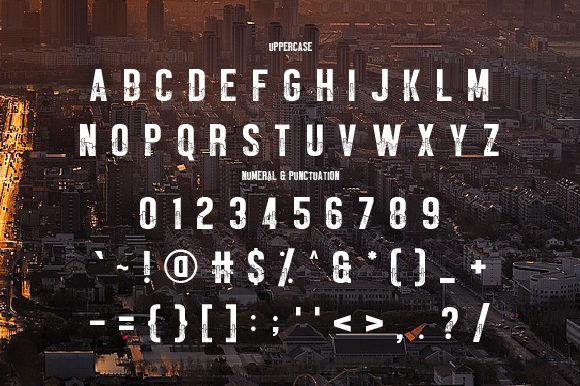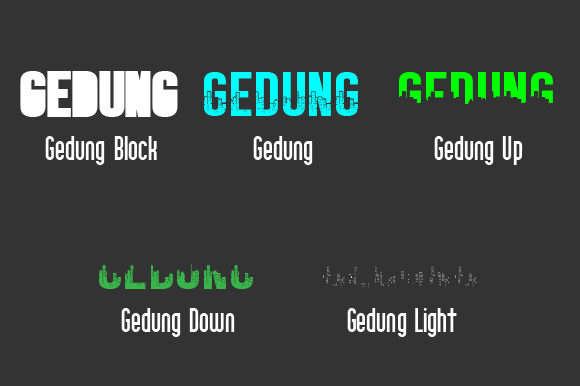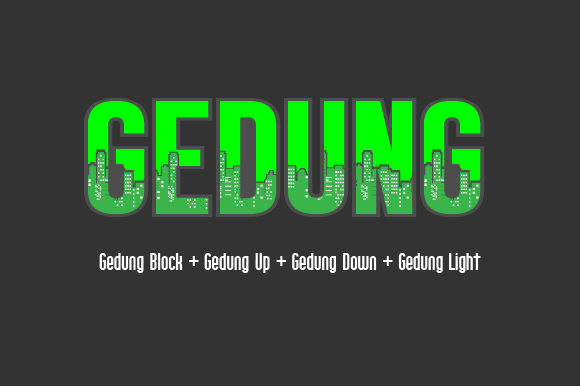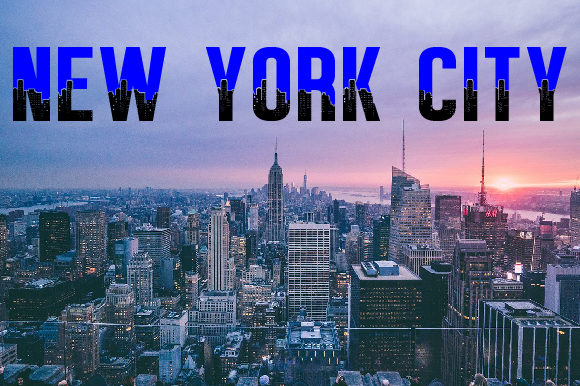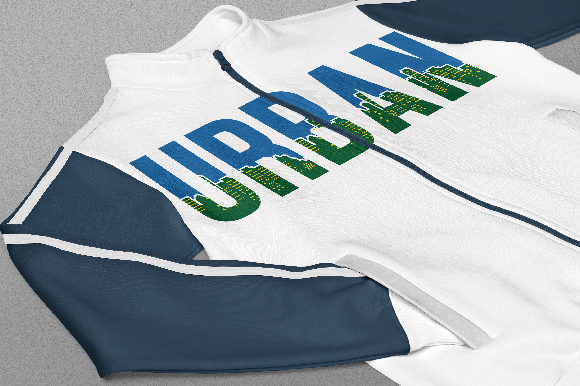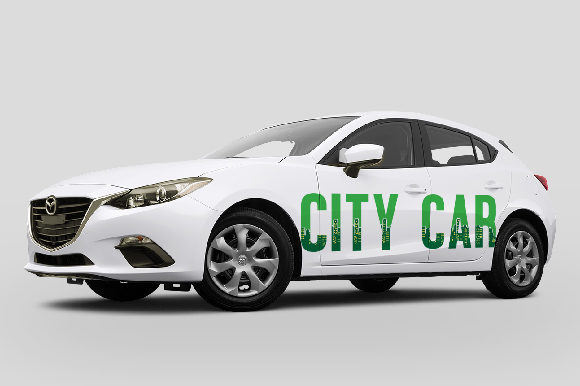
The Gedung Font: A Game-Changer for Your Designs
I’ll never forget the time I was working on a project for a client who wanted a modern, edgy look. I spent hours scouring the internet for the perfect font, but nothing seemed quite right. That was until I stumbled upon the Gedung font. With its unique skyline elements and multi-layered display, it was exactly what I needed to take my design to the next level.
- ✨ Unique and eye-catching design with skyline elements
- ✅ Multi-layered display for added depth and interest
- ✅ Great for headlines, titles, and other display text
- ✨ Works well with a variety of design styles, from modern to industrial
While I love the Gedung font, there are a few things to keep in mind. For example, it’s not ideal for body text due to its bold and attention-grabbing nature. ⚠️ Additionally, some of the skyline elements can be a bit finicky when it comes to kerning and spacing.
The Designer Inspiration Behind Gedung
The Gedung font was inspired by the urban landscapes of modern cities. The designer wanted to create a font that captured the energy and excitement of city skylines, while also being versatile and easy to use.
Q: What is the Gedung font best used for?
A: The Gedung font is best used for headlines, titles, and other display text. It’s not ideal for body text due to its bold and attention-grabbing nature.
Q: Is the Gedung font easy to read?
A: The Gedung font is a bold and attention-grabbing font, but it may not be the easiest to read in large blocks of text. It’s best used for short, impactful text.